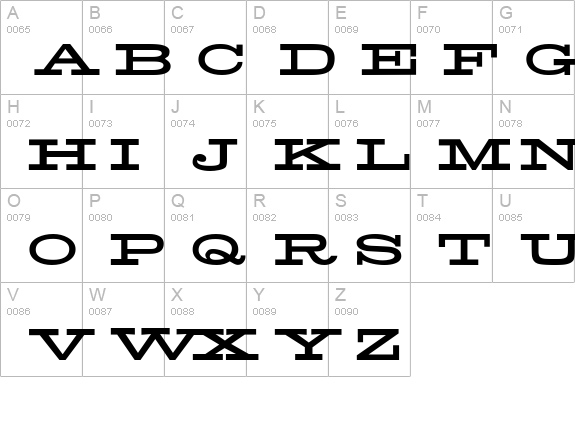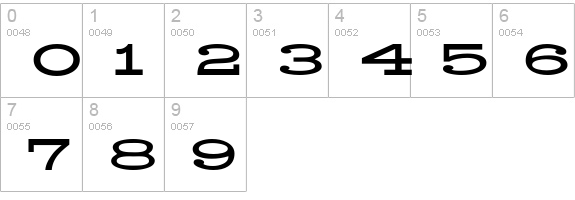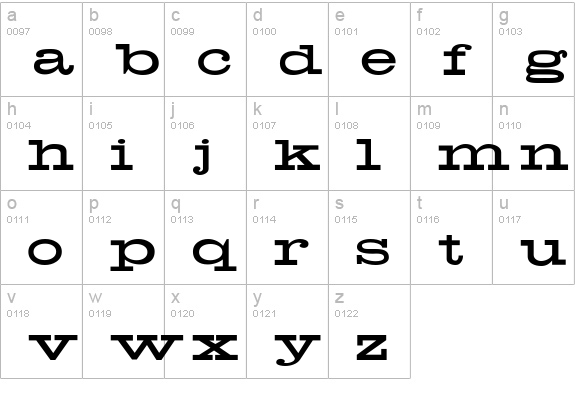
Biggen Font Details
Biggen font is a bold and eye-catching typeface that commands attention with its strong and distinctive design. Its thick strokes and sharp angles give it a modern and dynamic look, making it perfect for headlines, logos, and other display purposes. The sleek and stylish appearance of Biggen font makes it a great choice for projects that require a touch of sophistication and elegance. And the best part is that Biggen font is available for free download at FontsMarket.com! Now you can add this versatile and impactful font to your collection without any cost. Don't miss out on the opportunity to enhance your designs with Biggen font's bold and striking aesthetic. Download it now and let your creativity soar with this amazing typeface.